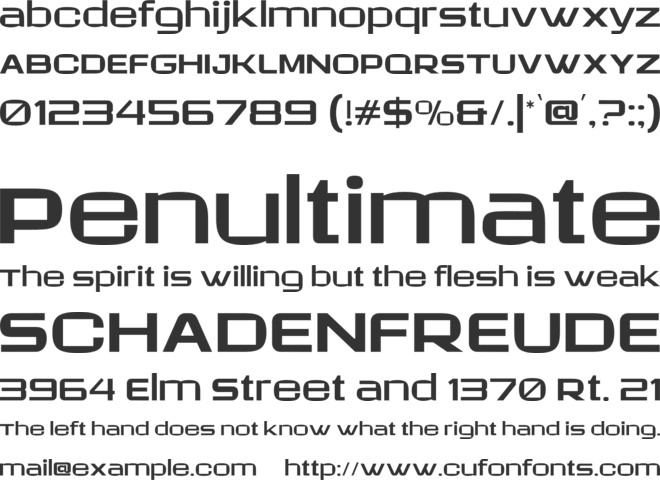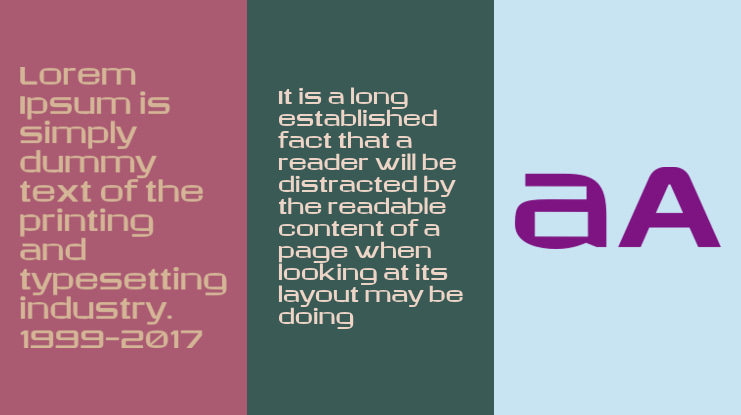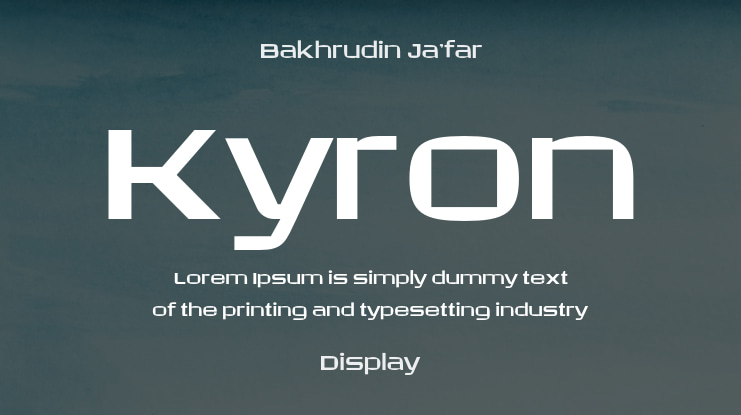
Kyron Font Family
Kyron is a new sans serif font family designed to bring a modern, professional edge to any project. With 5 distinct weights ranging from Regular to ExtraBold, this font offers the flexibility and versatility that designers and business professionals need. Its clean lines and balanced structure make Kyron perfect for a wide range of uses, from branding and logo design to website and print applications.
Each weight in the Kyron family has been crafted with attention to detail, ensuring clarity and readability across all sizes. The unique, sleek appearance of Kyron lends a polished and trustworthy feel to any text, allowing your message to stand out with confidence. It’s the ideal font for those who prioritize professionalism and a modern aesthetic in their designs.
Weights from Regular to Extra-Bold
Sans Serif with a Modern, Luxurious Appeal
Perfect for Logos, Branding, and Editorial Design
Combines Modern Elegance with Contemporary Style
Multilingual Support, numerals and punctuation